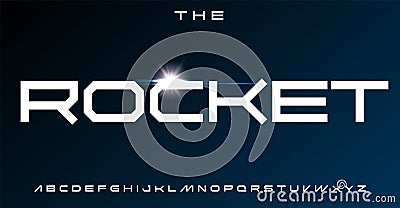
Wide Geometric Font, Sci-fi Squared Letters, Innovative Angular Alphabet For Futuristic Design, Modern Tech Branding Cartoon Vector
Wide geometric font, sci-fi squared letters, innovative angular alphabet for futuristic design, modern tech branding Vector Illustration
Wide geometric font, sci-fi squared letters, innovative angular alphabet for futuristic design, modern tech branding, space exploration vibe, minimalistic geometry typography. Vector typeset.